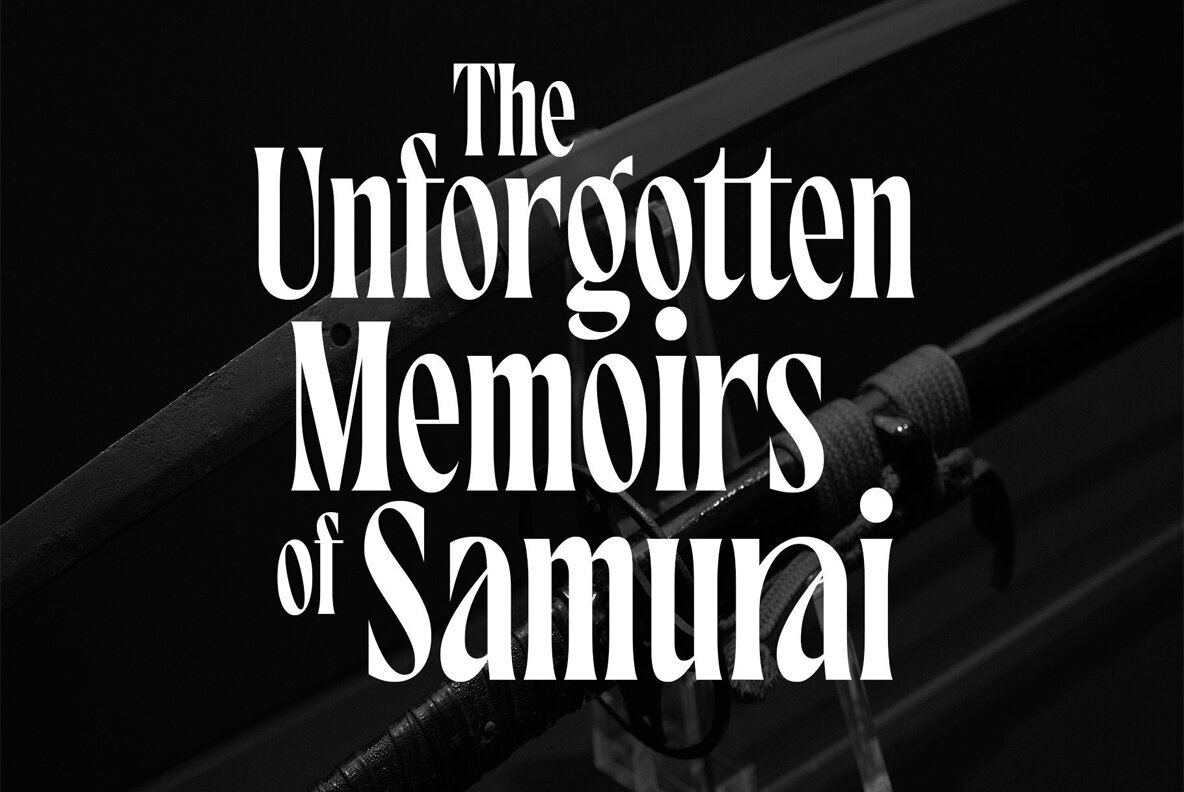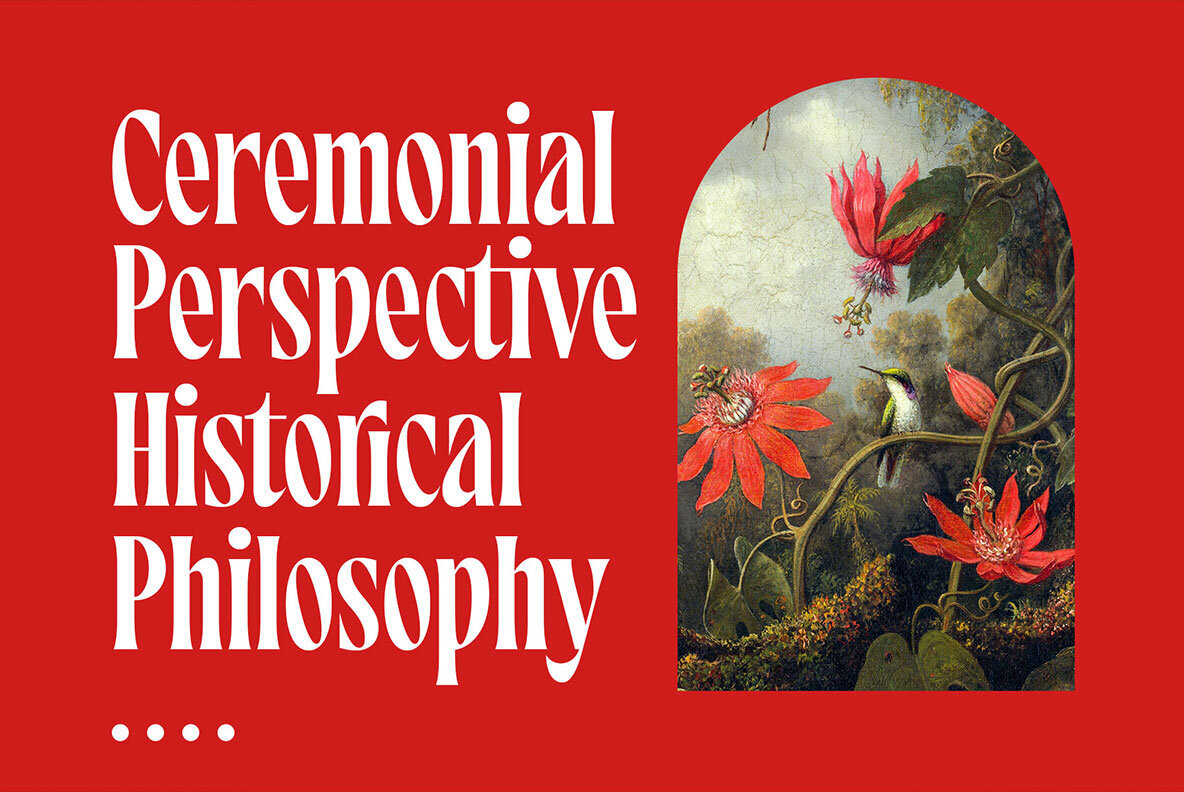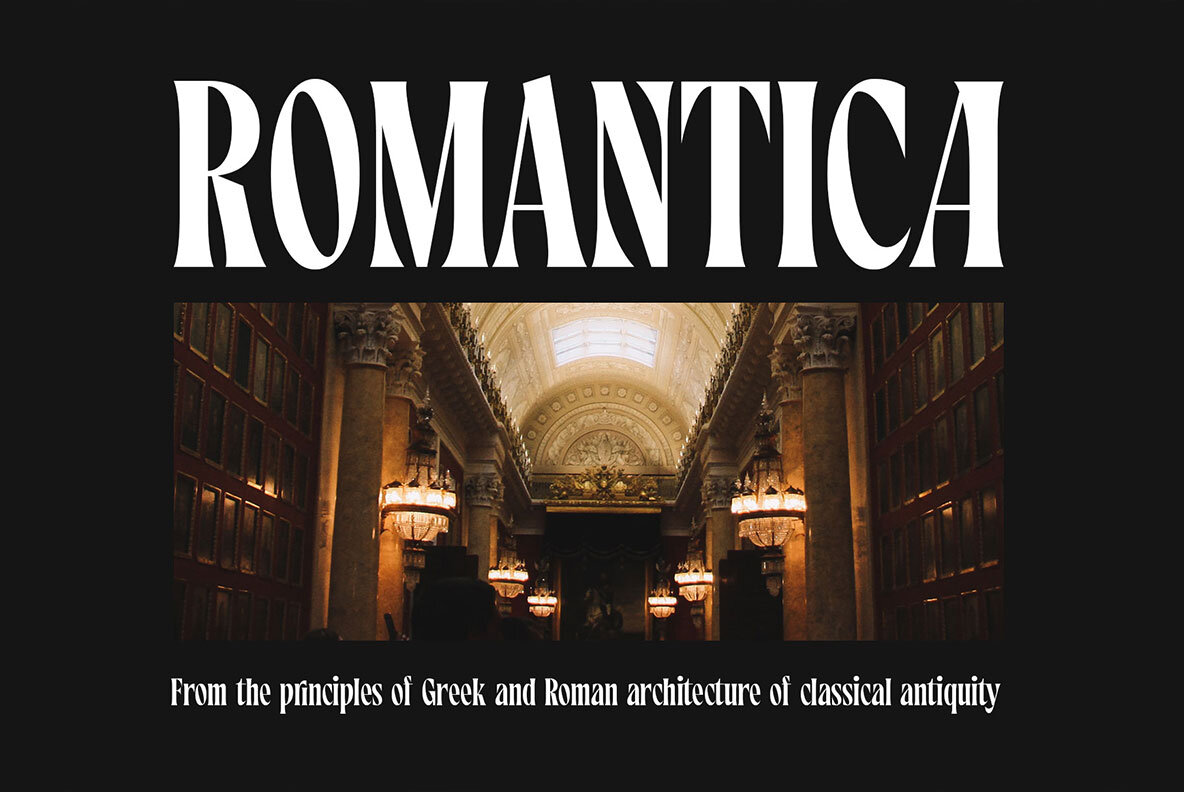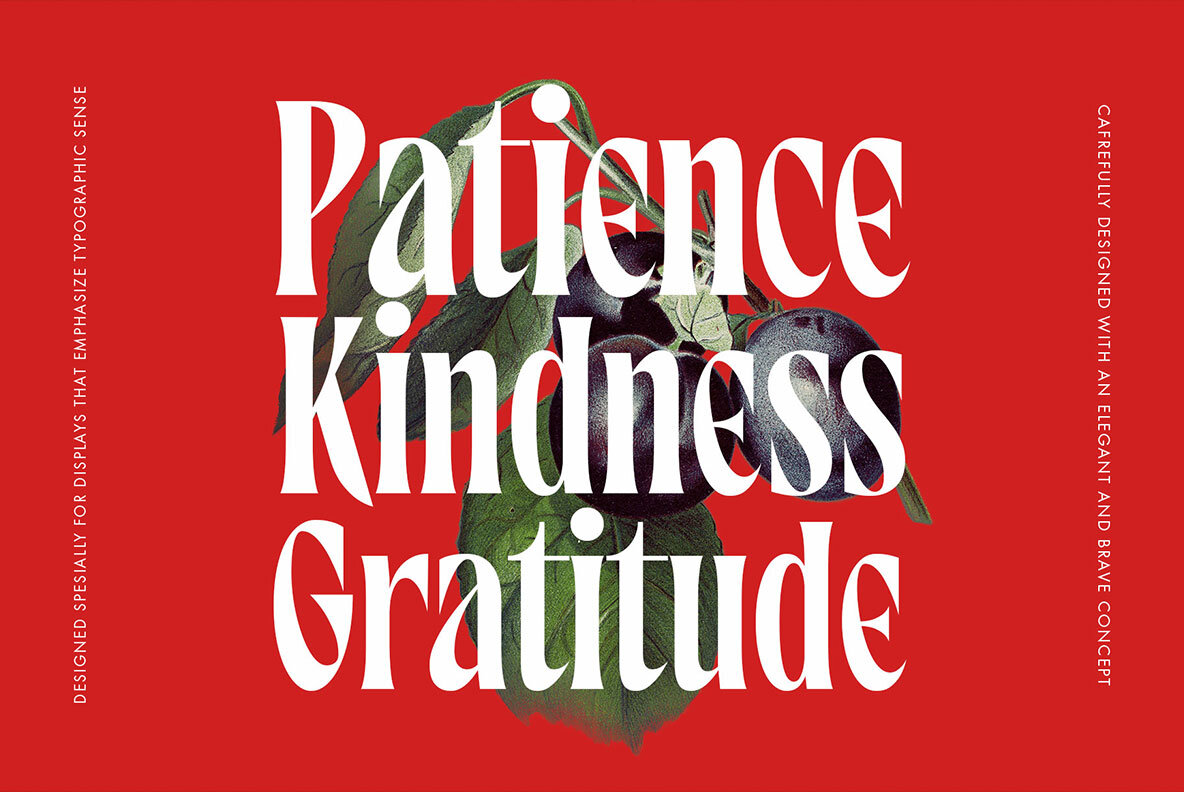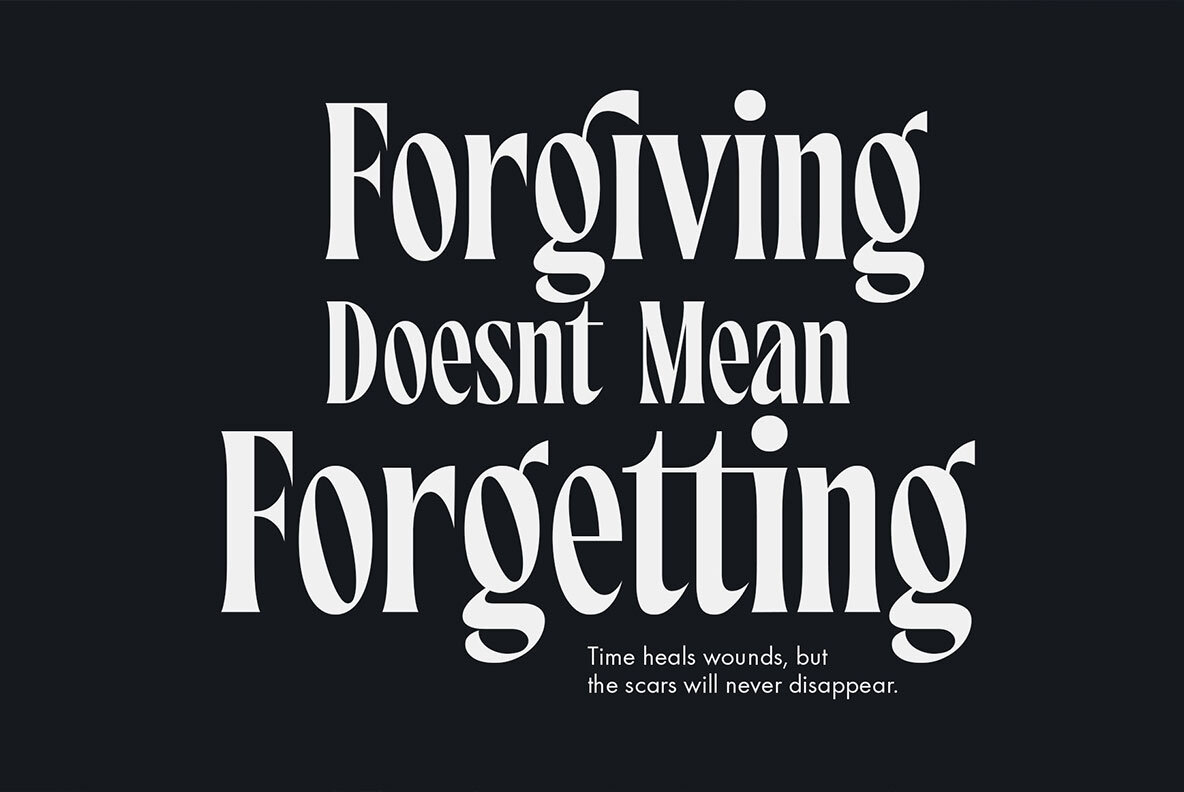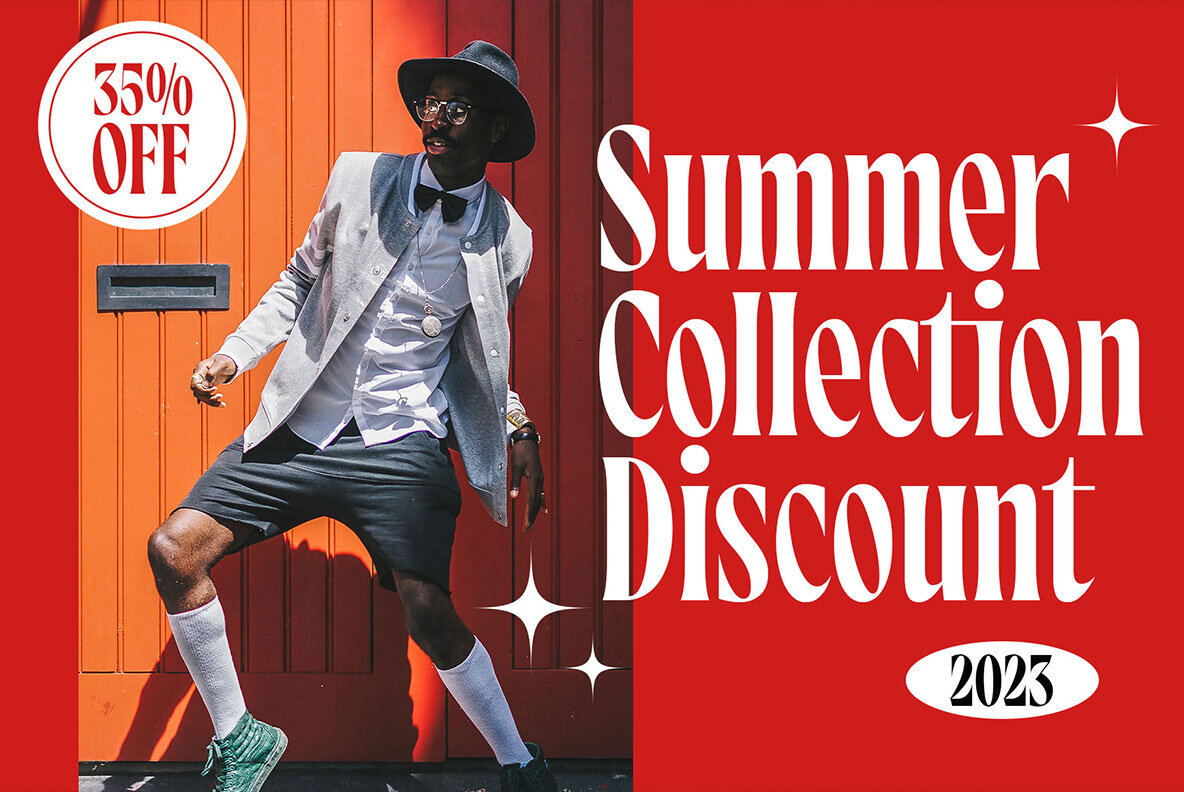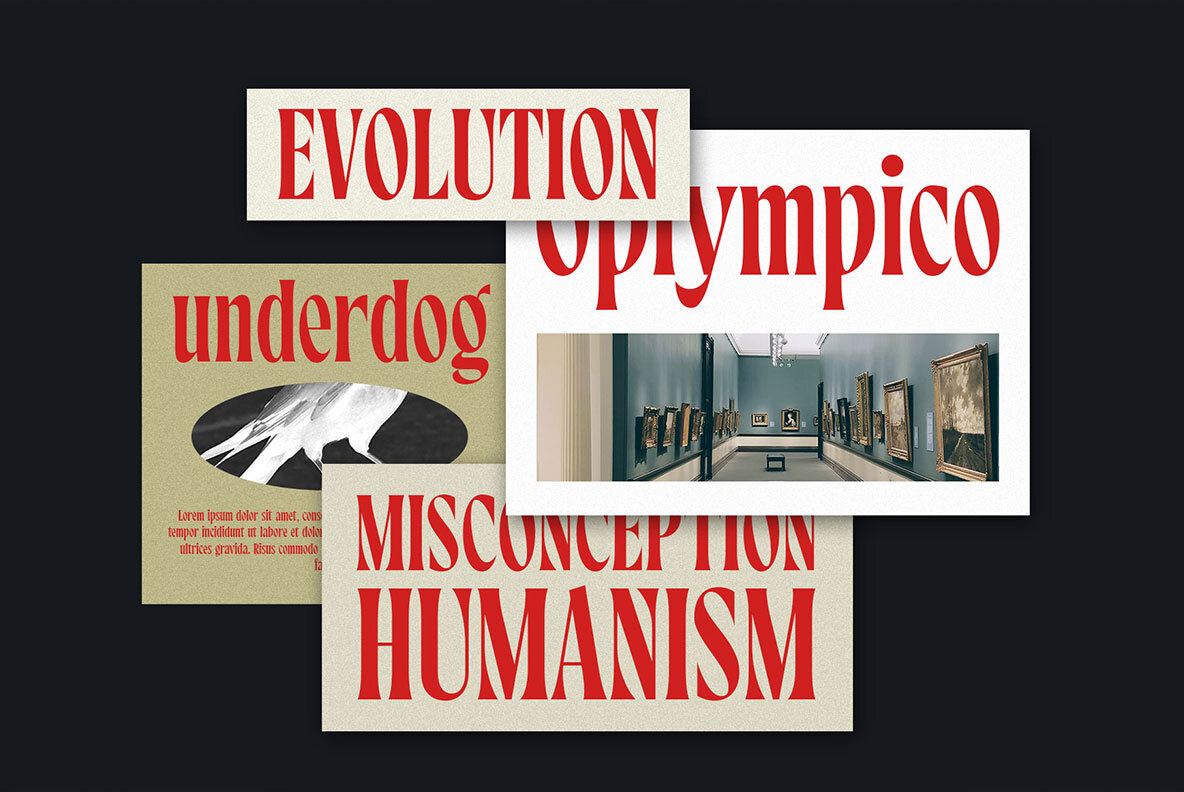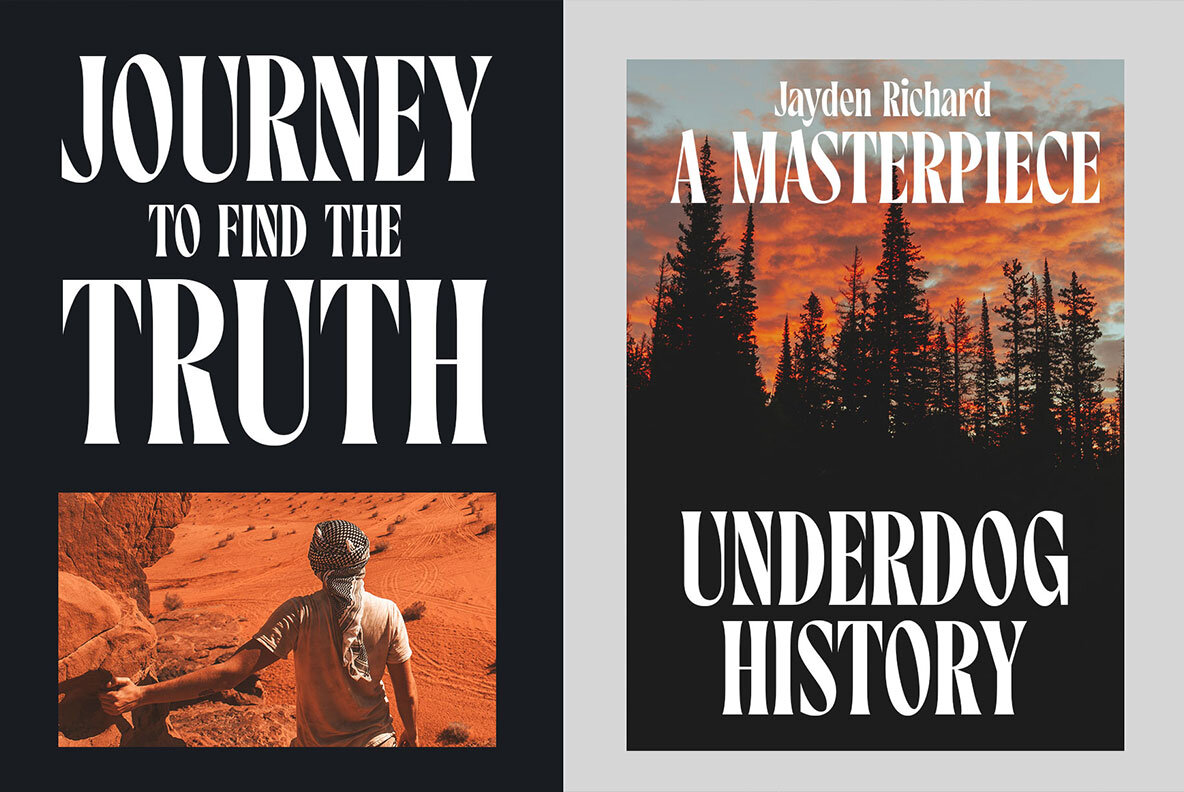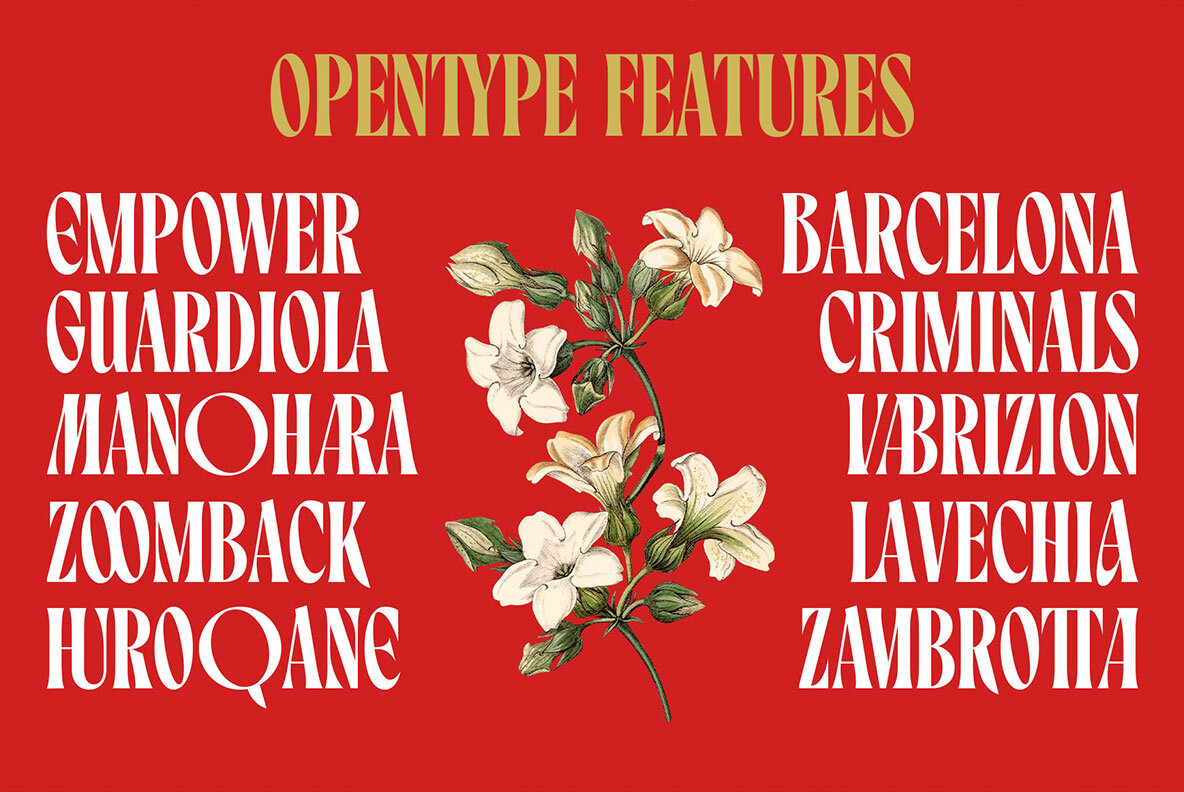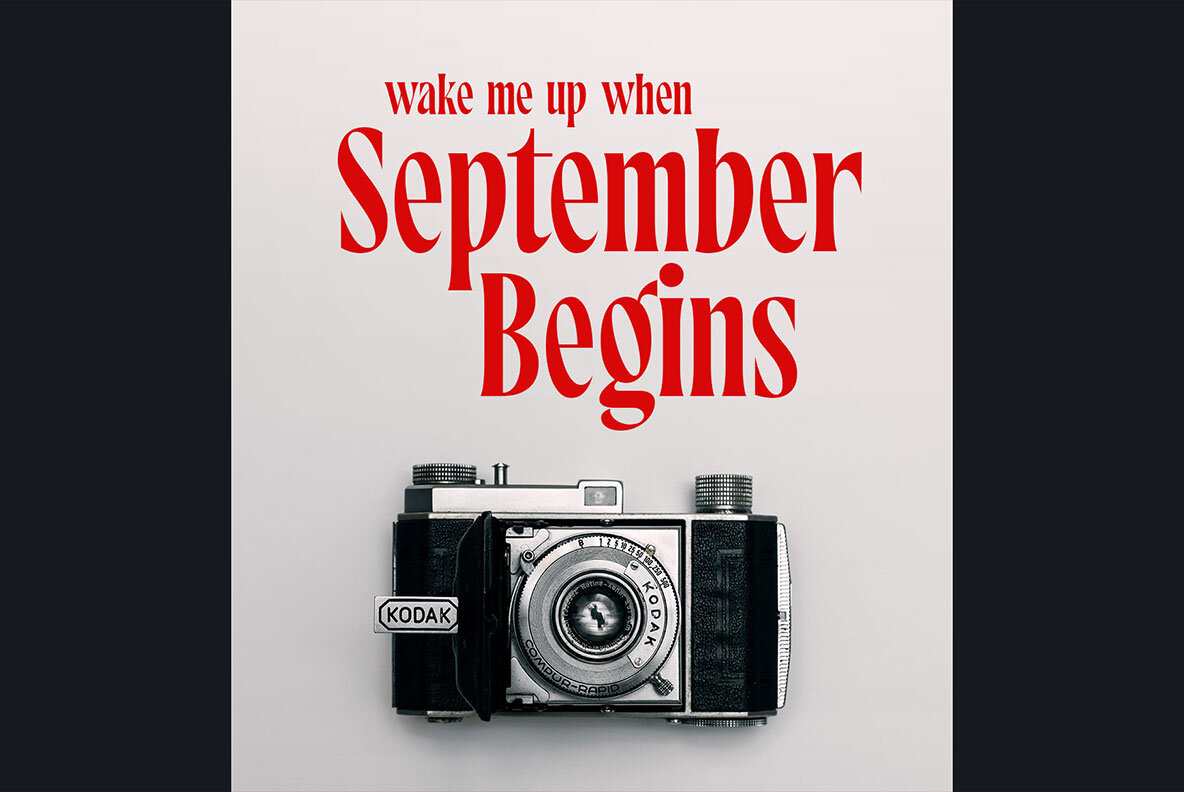
Maltiner Font
Maltiner Display Regular
Introducing Maltiner Display: A versatile, elegant, and sophisticated condensed serif font inspired by classic typography and newspaper headlines. Designed to excel in display settings, Maltiner Display prioritizes typographic excellence, offering a bold yet refined aesthetic. With unique letterforms and sharp edges, Maltiner Display provides ligatures and special characters, the perfect choice for luxury projects. Whether it's a captivating logotype, an elegant editorial layout, a movie title that demands attention, or any other creative endeavor like posters, postcards, or apparel design, this font elevates your work to new heights. Font featured: Experience the fusion of tradition and modernity with Maltiner Display, where every character is a work of art, bringing sophistication to your design world.